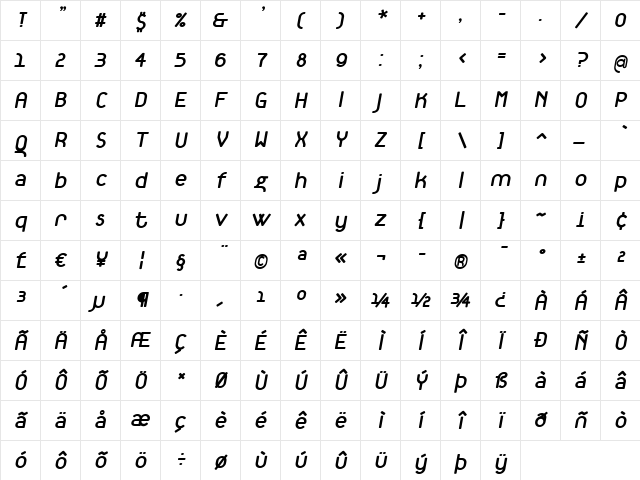
Complete TantalusBoldItalic Regular glyph index. Displaying only characters natively supported by TantalusBoldItalic Regular font.
TantalusBoldItalic is a composed and adaptable typeface that performs quietly and consistently across a wide range of design contexts. The slanted form adds forward momentum and visual energy. Its bold stroke weight gives it real presence on the page.
Pro Tip: Use TantalusBoldItalic for emphasis, pull quotes, and subheadings where its slanted energy can add rhythm to the layout.